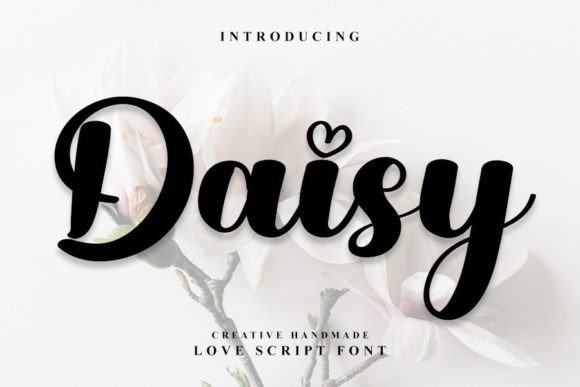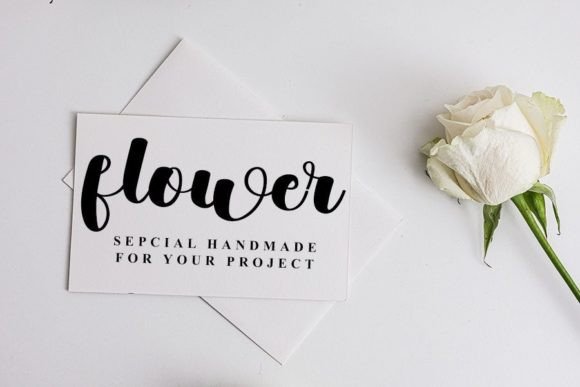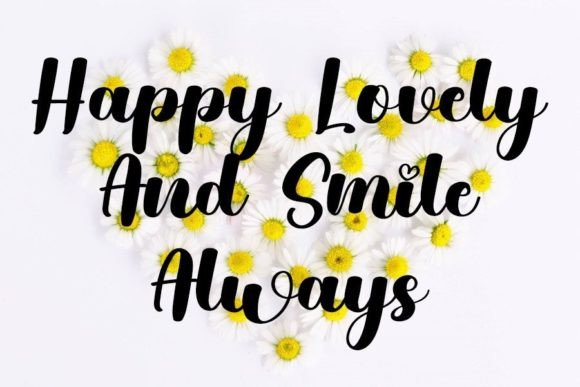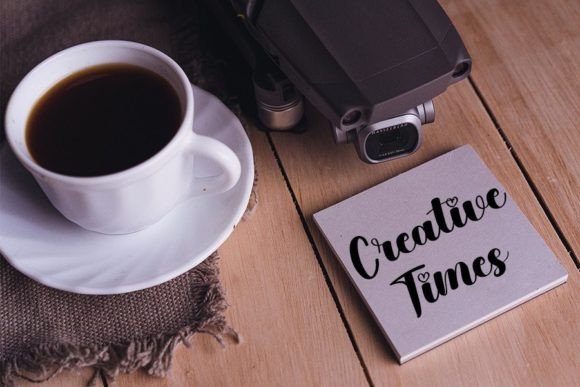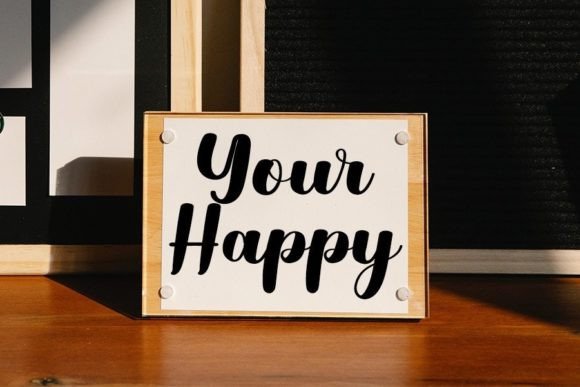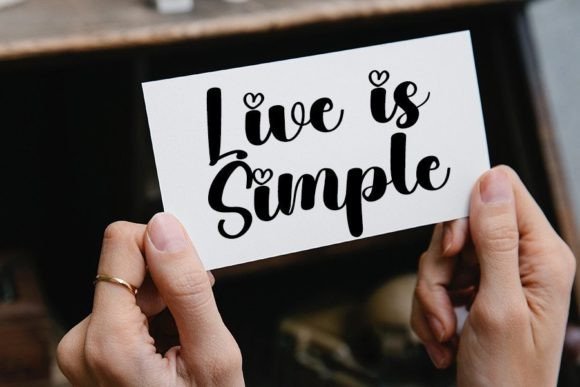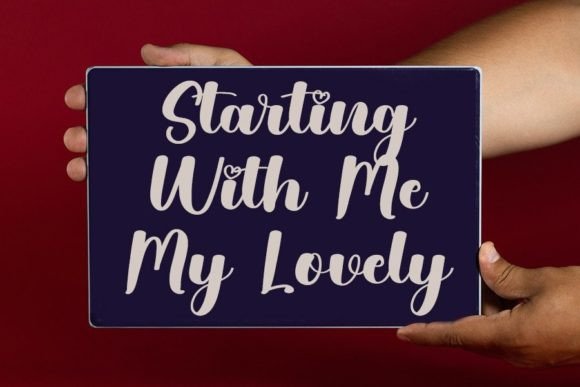
Daisy Font
About Daisy Font
“Daisy” is a stylish handwritten font that effortlessly blends contemporary flair with the timeless elegance of classic calligraphy. Its impeccable form and modern aesthetic make it a versatile choice for a wide range of projects. Inspired by the grace of traditional script styles, “Daisy” adds a touch of sophistication to your designs while maintaining a fresh and current vibe.
The font’s balanced and varied characters showcase a harmonious blend of curves and strokes, creating a visually pleasing composition. Each letter is meticulously crafted, capturing the essence of hand-lettered calligraphy. Whether used for branding, invitations, social media posts, or any other creative endeavor, “Daisy” enhances the beauty of your projects, leaving a lasting impression on viewers.
One of the standout features of “Daisy” is its versatility. It adapts seamlessly to different design contexts, from elegant wedding invitations to modern website headers. Its contemporary atmosphere ensures that it remains relevant in a variety of design trends, making it a valuable asset for designers seeking a font with enduring appeal.
Additionally, “Daisy” is PUA encoded, allowing convenient access to a wide array of glyphs and ligatures. This feature empowers you to explore diverse letterforms and decorative elements effortlessly. With its user-friendly accessibility, “Daisy” offers endless creative possibilities, enabling you to customize your designs with unique and captivating details.
In the world of typography, where style meets substance, “Daisy” shines as a beacon of creativity. Its contemporary elegance and classic charm make it an excellent choice for designers who appreciate the artistry of letterforms. Embrace the sophistication of “Daisy,” and let your creativity flourish as you craft designs that exude timeless beauty and modern allure.